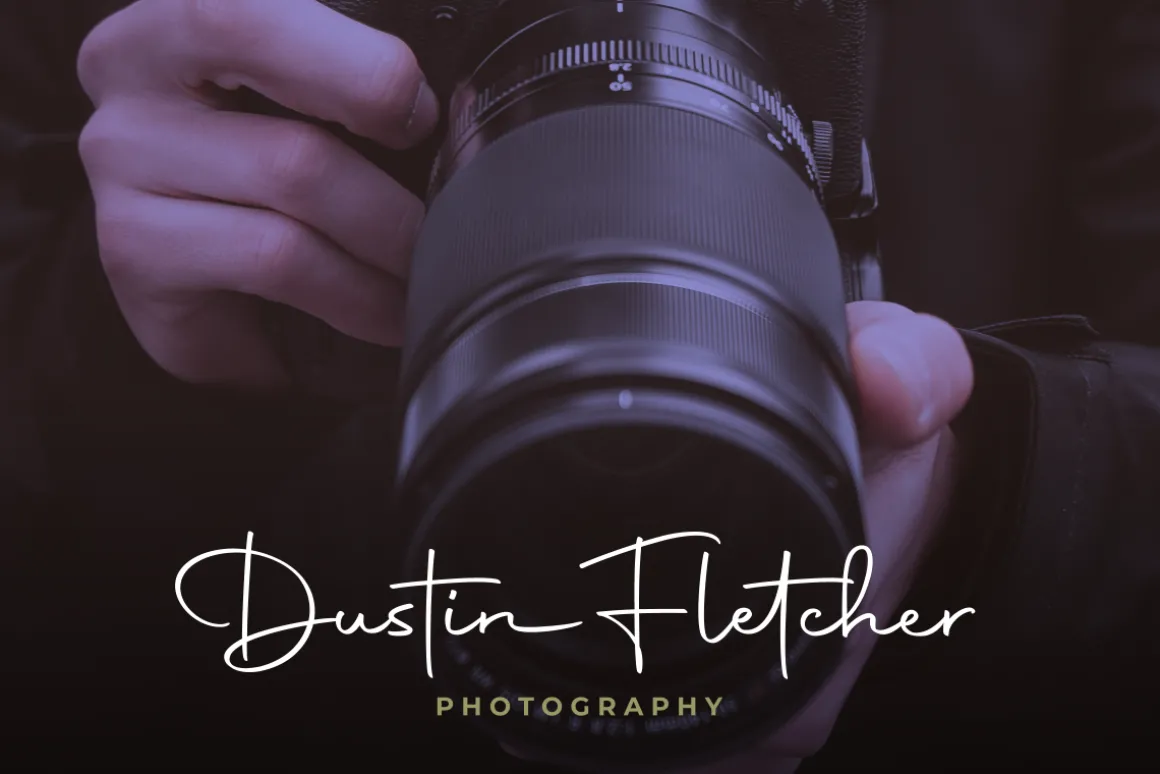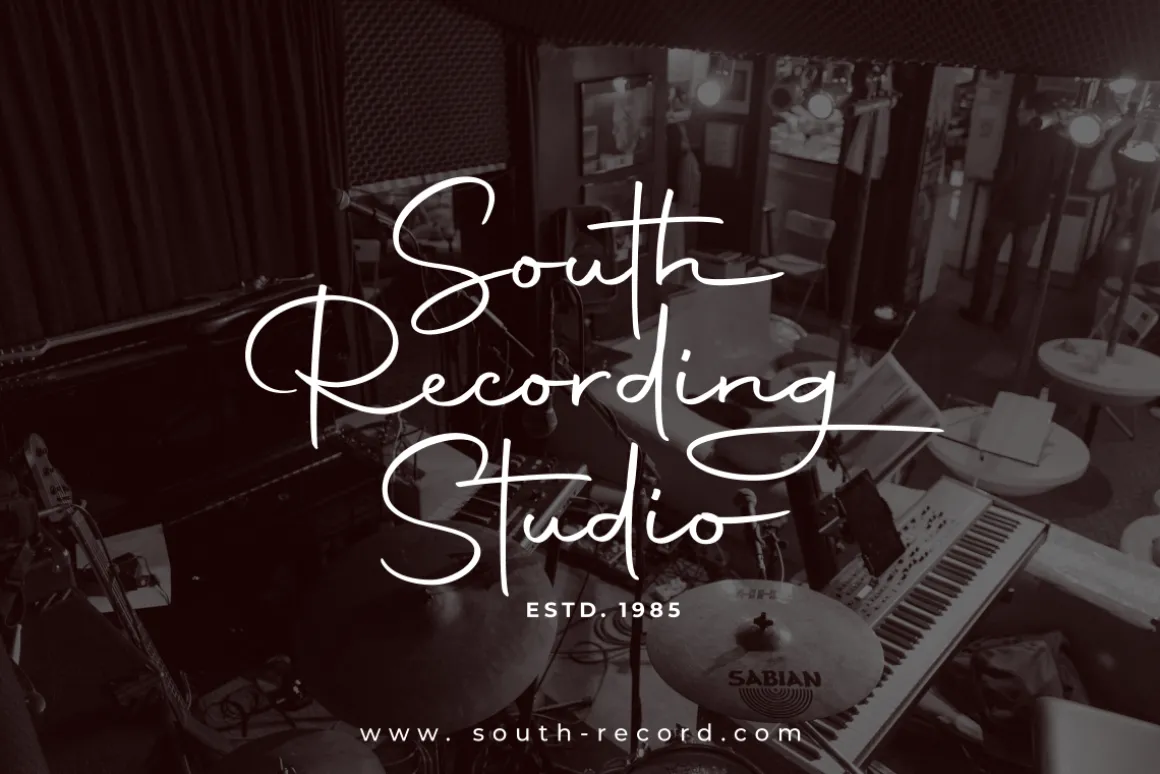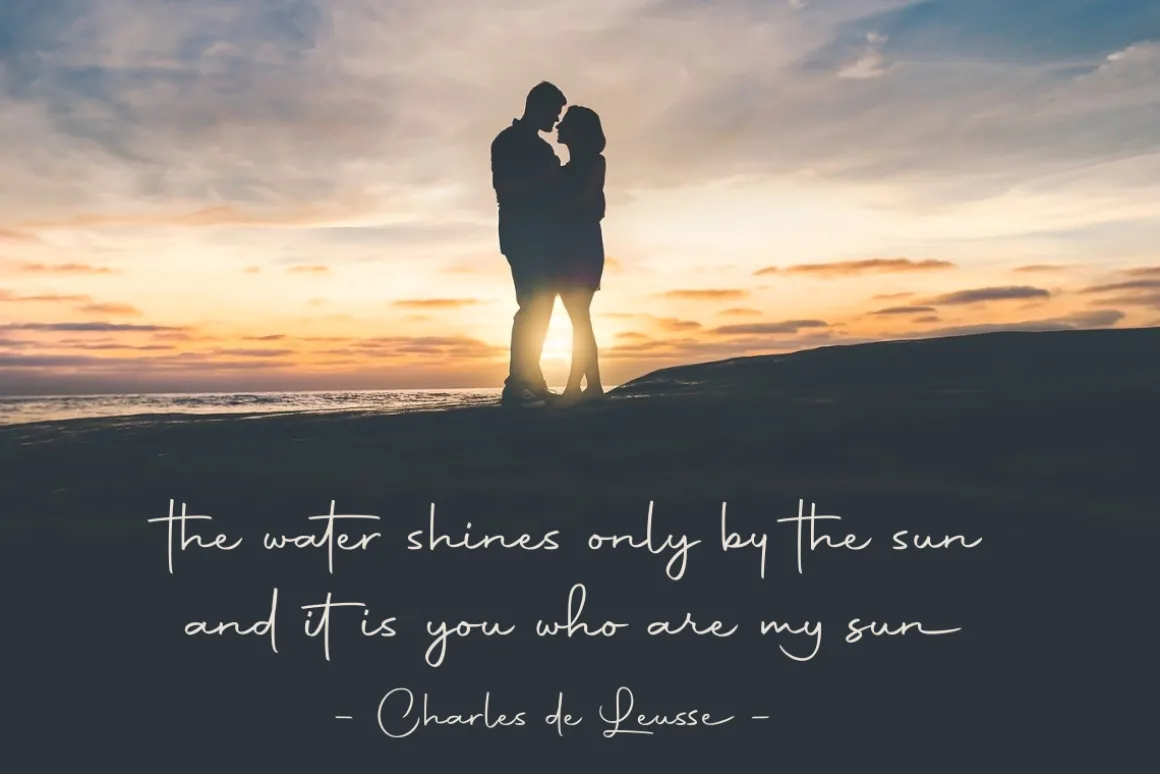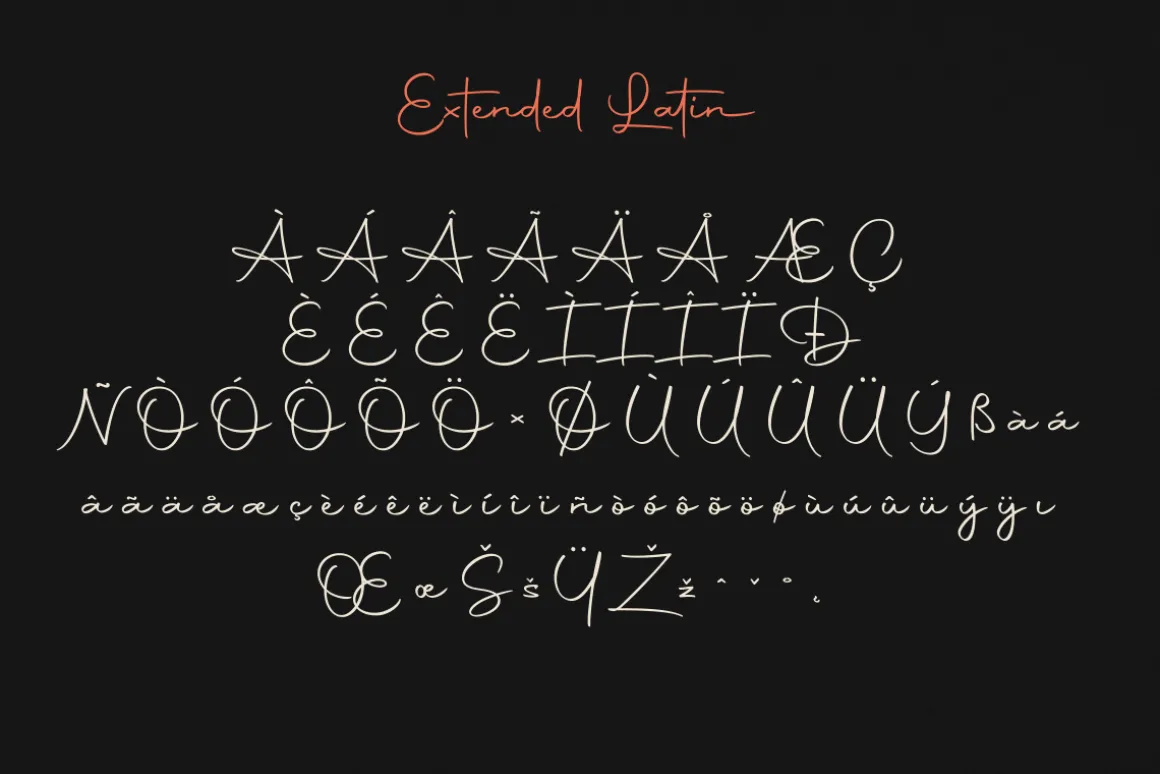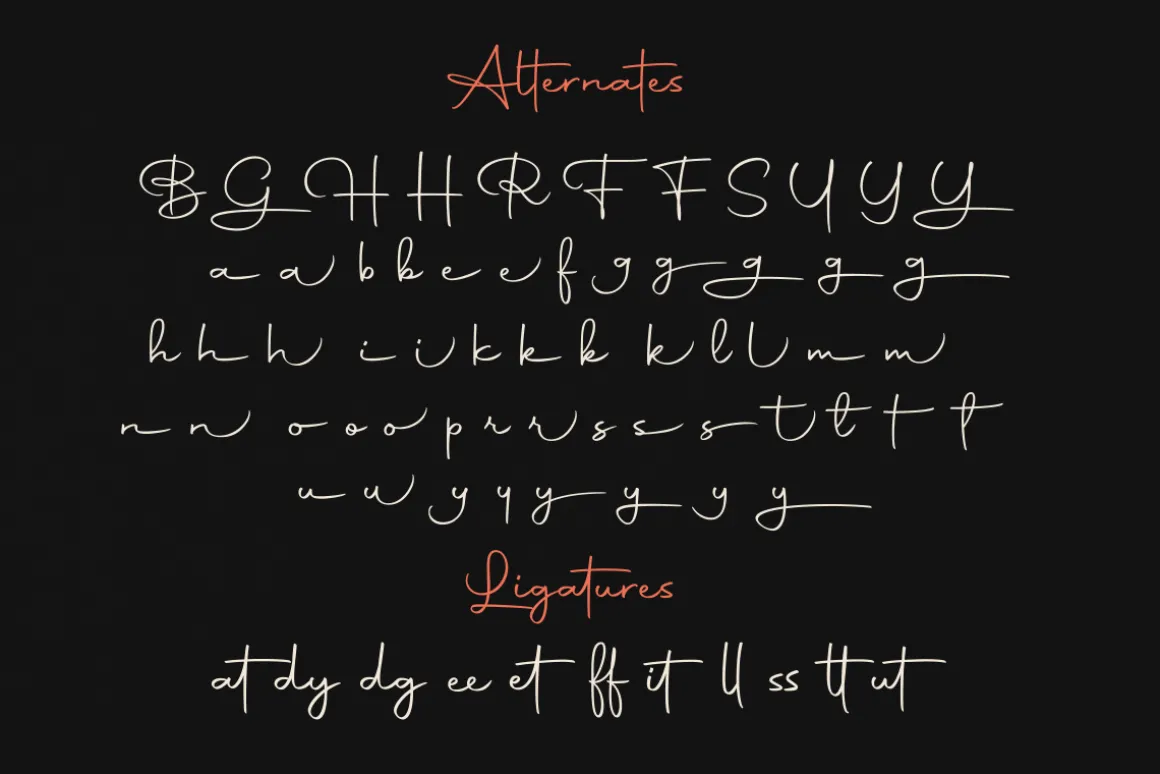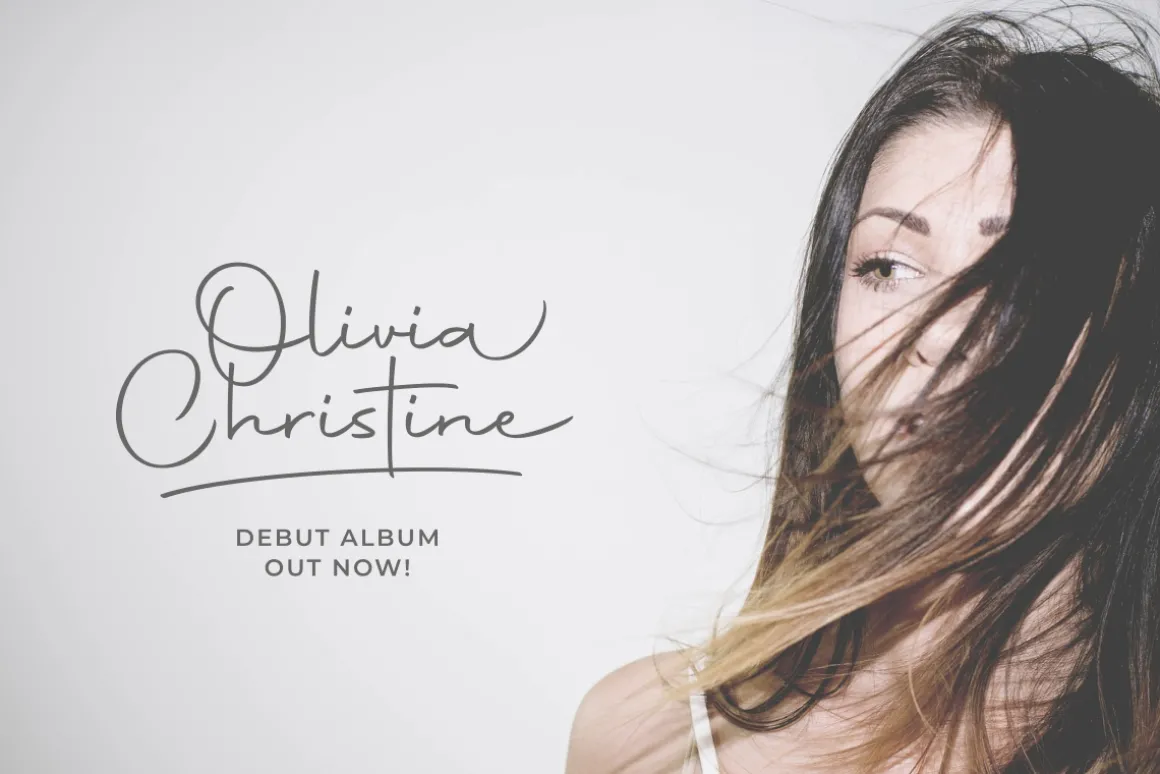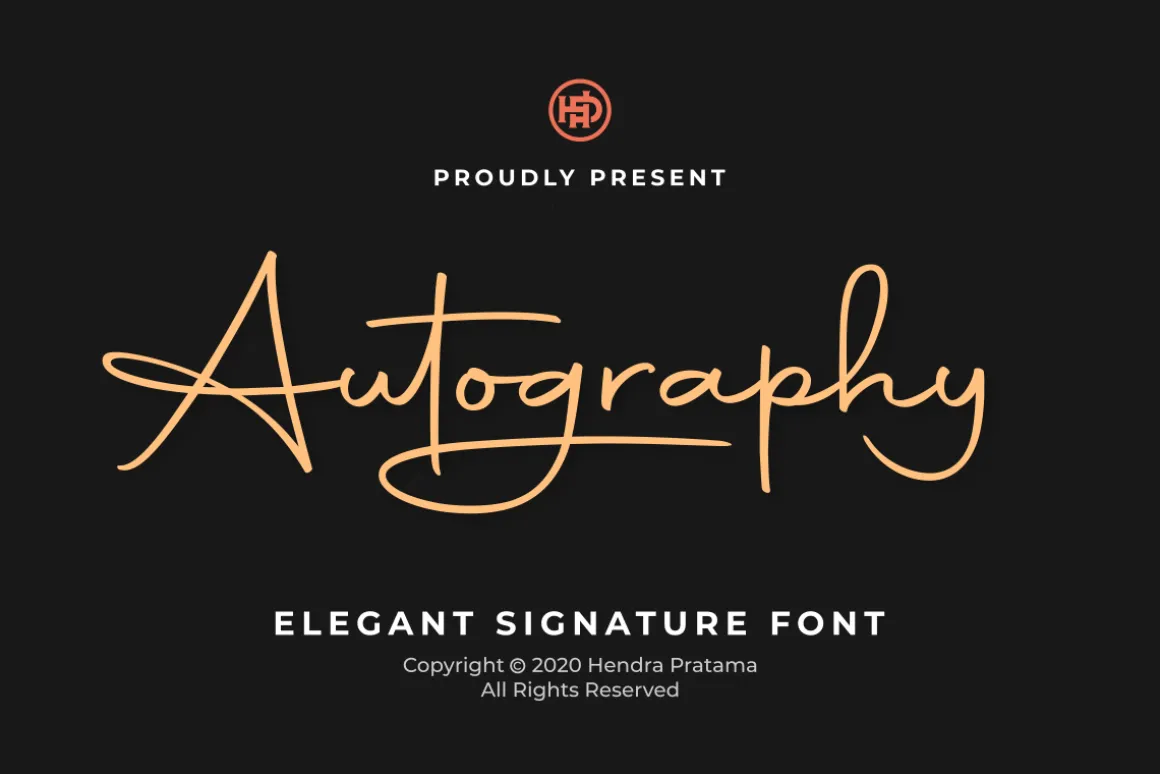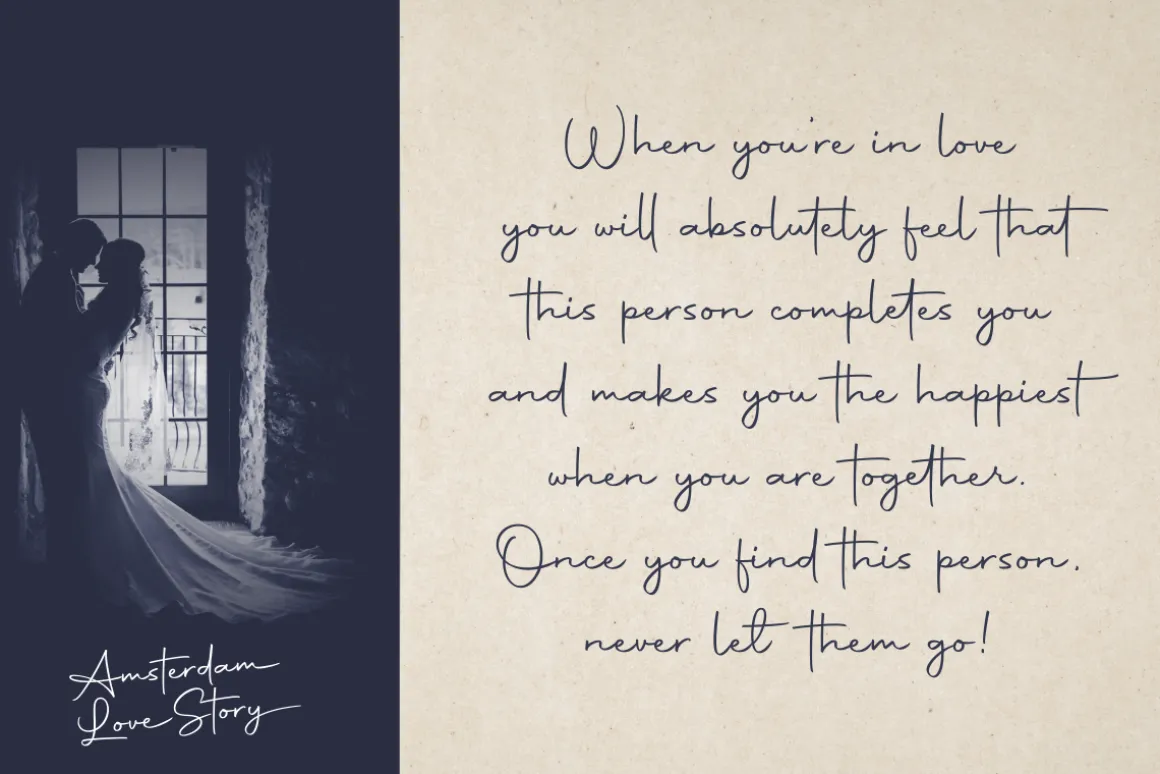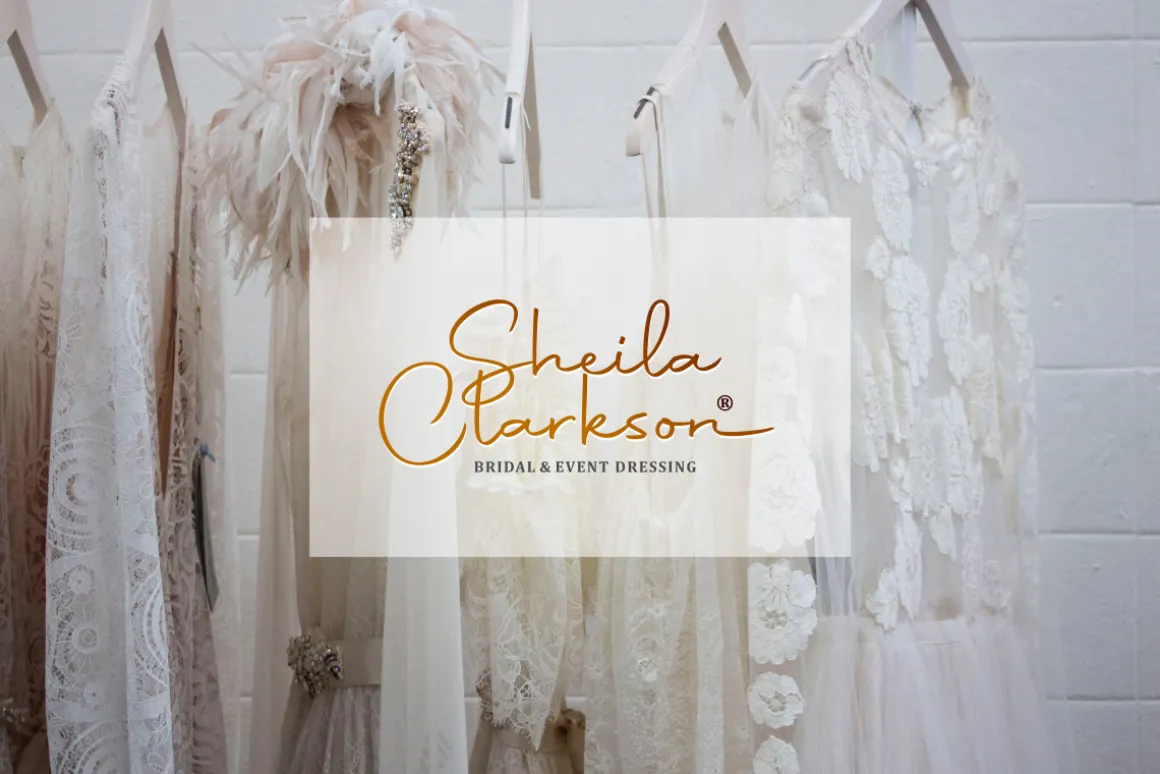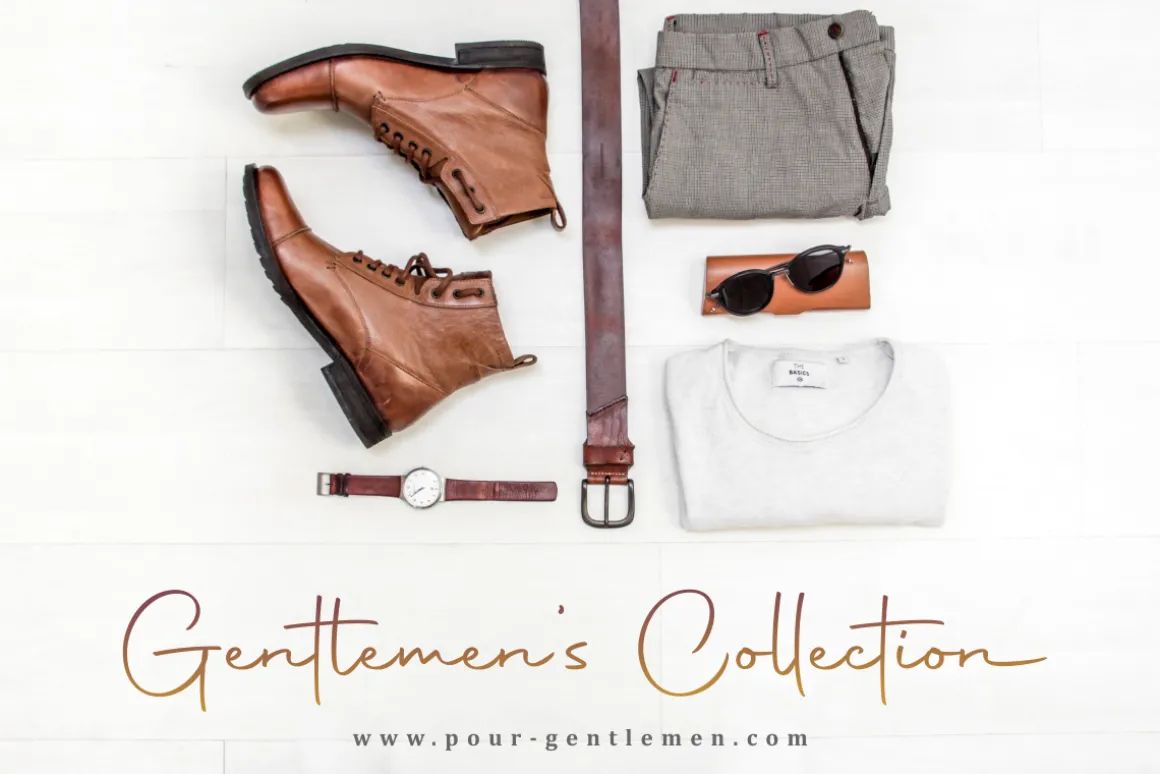
Autography -A new signature font with a smooth shapes and upright calligraphic style.
Very usable for creating logotype, autographs or digital signature for your personal namecard or brand.It is also suitable for cosmetics poster, fashion magazine, book cover, movie title or a simple quotes design.
Features
- Stylistic Alternates
- Stylistic Set 01-06
- Ligatures
- Contextual Alternates
- Swashes
Support over 40 Basic Latin Language